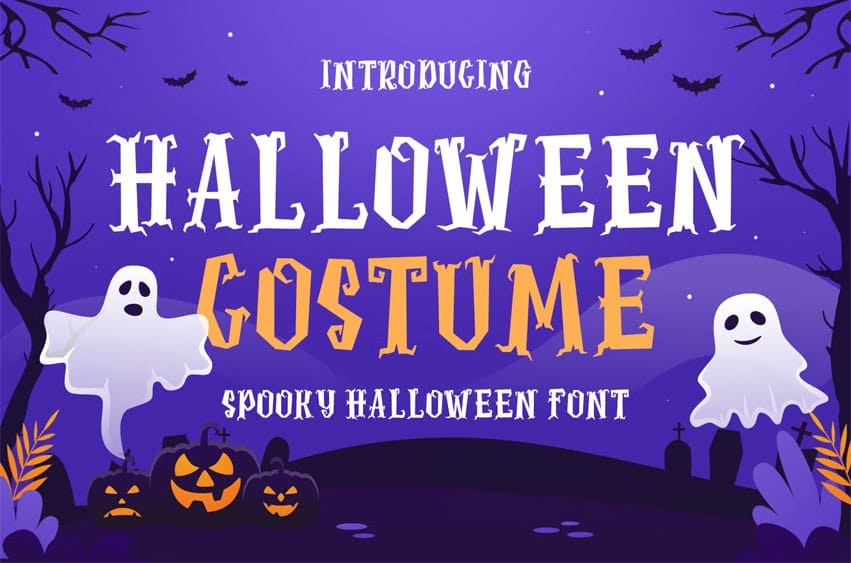
Halloween Costume Font is a spooky horror display font inspired by creepy costumes, haunted nights, and the chilling atmosphere of Halloween Day. Its bold shapes, rough details, and eerie character design create a frightening yet fun look that perfectly captures the spirit of Halloween.
Designed as a strong display font, Halloween Costume is ideal for Halloween-themed projects such as posters, banners, party flyers, event signage, and spooky decorations. The dramatic letterforms instantly draw attention and help your designs stand out with a scary and playful horror vibe.
This font is also versatile for seasonal creativity beyond Halloween. It works well for Halloween invitations, Thanksgiving designs with a spooky or autumn twist, fall-themed crafts, and creative lettering projects. The font adds character and mood to both digital and printed designs.
Halloween Costume is fully suitable for SVG projects and cutting machines, making it perfect for Cricut, crafts, stickers, mugs, posters, and DIY decorations. Its clear display style ensures readability while maintaining a strong horror aesthetic.